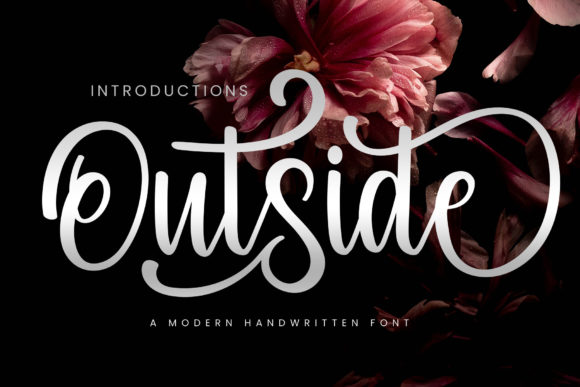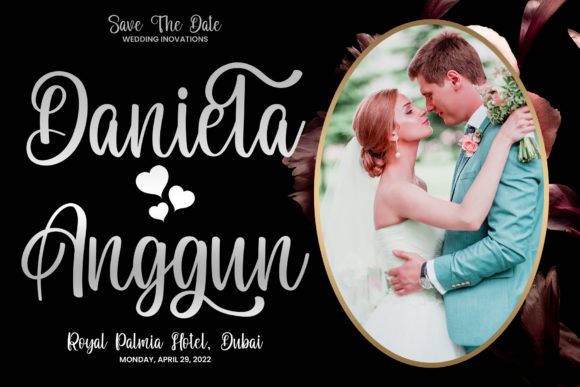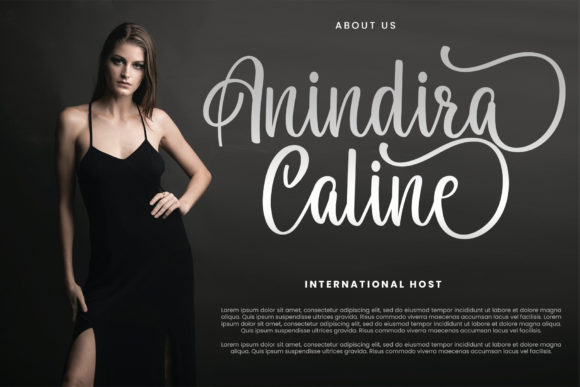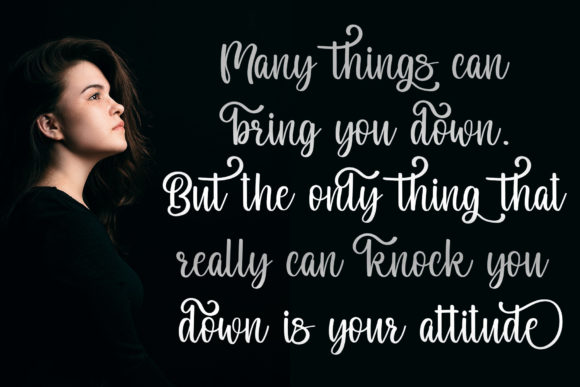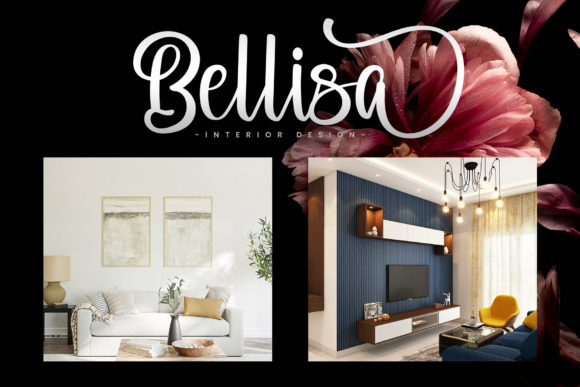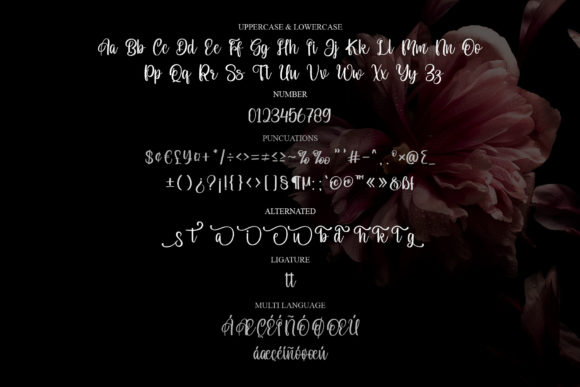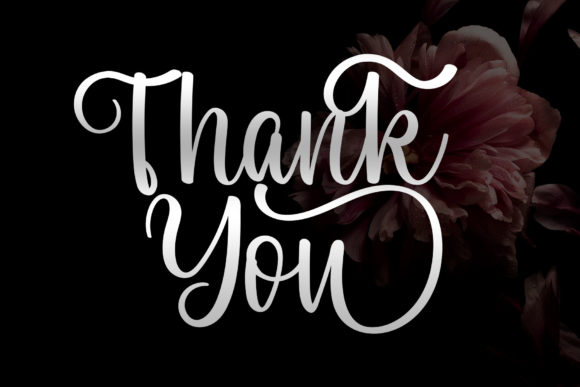
Outside Font
About Outside Font
Outside emerges as an exquisite script font, seamlessly blending a contemporary ambiance with the impeccable form inspired by timeless classic calligraphy. Striking the perfect balance between not too thin and not too thick, this font is meticulously crafted to elevate the aesthetic appeal of your projects, adding an element of elegance that stands the test of time.
The font’s design exudes sophistication, making it a versatile choice for a wide range of applications. Whether you are working on invitations, branding, packaging, or any other design project, Outside’s refined script imparts a touch of timeless charm. Its contemporary atmosphere ensures that it aligns effortlessly with modern design trends, while the nods to classic calligraphy provide a sense of enduring beauty.
Outside’s versatility is further enhanced by its PUA encoding, a feature that simplifies the process of accessing all glyphs and swashes with ease. This encoding empowers designers to explore the font’s diverse elements effortlessly, unlocking a world of creative possibilities. The availability of various glyphs and swashes allows for personalized and unique touches, enabling designers to tailor the font to suit the specific nuances of their projects.
The elegance of Outside extends beyond its visual appeal; it contributes to the overall beauty of your designs, making a lasting impression on your audience. The font’s contemporary yet timeless quality ensures that it remains relevant in a variety of design contexts, providing designers with a reliable and stylish tool to enhance their creative expression.
In conclusion, Outside is not merely a font; it is a refined expression of timeless elegance and contemporary style. Whether used for formal invitations, brand identity, or any other design endeavor, Outside’s impeccable form and versatile nature make it a standout choice. With the added convenience of PUA encoding, designers can unlock the full potential of this font, seamlessly integrating it into their projects and creating stunning visuals that captivate and endure.